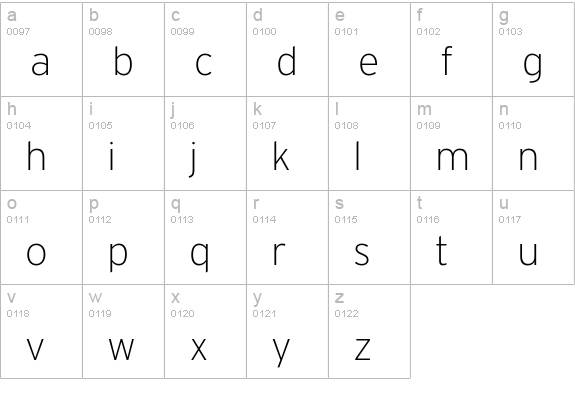
Interstate ExtraLight Font Details
Interstate ExtraLight is an airy, ultra-refined variant in the Interstate typeface family \xE2\x80\x94 well suited to minimalist headlines and refined display use.
Introducing Interstate ExtraLight Font - a stunning and modern typeface that will elevate your design projects to new heights. This elegant font features a delicate and refined appearance, making it the perfect choice for adding a touch of sophistication to any creative endeavor. With its clean lines and subtle curves, Interstate ExtraLight exudes a sense of professionalism and simplicity that is both captivating and versatile. Whether you're designing a logo, creating a website, or crafting eye-catching marketing materials, this font will effortlessly enhance your message and make it stand out from the crowd. One of the most remarkable aspects of Interstate ExtraLight Font is its accessibility - it is freely available to download at FontsMarket.com. This means that you can easily incorporate this exceptional font into your design projects without any additional cost. The freedom to use this font without any restrictions allows you to explore endless possibilities and unleash your creativity like never before. Designed with the utmost attention to detail, Interstate ExtraLight Font offers a wide range of characters and glyphs, ensuring that you have the tools necessary to bring your vision to life. Its legibility and readability make it suitable for a variety of applications, from large headings to body text, enabling you to create cohesive and visually stunning designs across different mediums. Whether you're a seasoned designer or just starting your creative journey, Interstate ExtraLight Font will undoubtedly become an invaluable asset in your toolkit. Its versatility, elegance, and the fact that it is freely available for download at FontsMarket.com make it a must-have for any design enthusiast or professional seeking to make a lasting impression. Don't miss out on the opportunity to elevate your design projects with Interstate ExtraLight Font. Download it for free at FontsMarket.com and embark on a creative journey filled with endless possibilities.